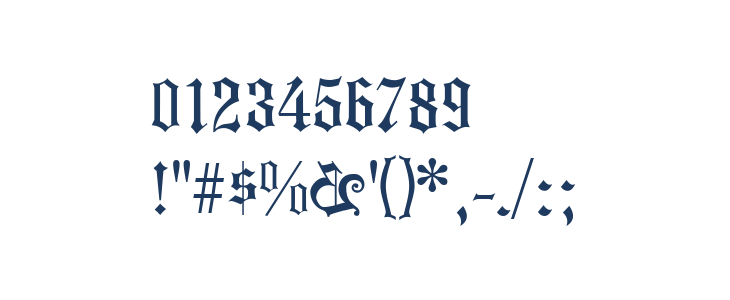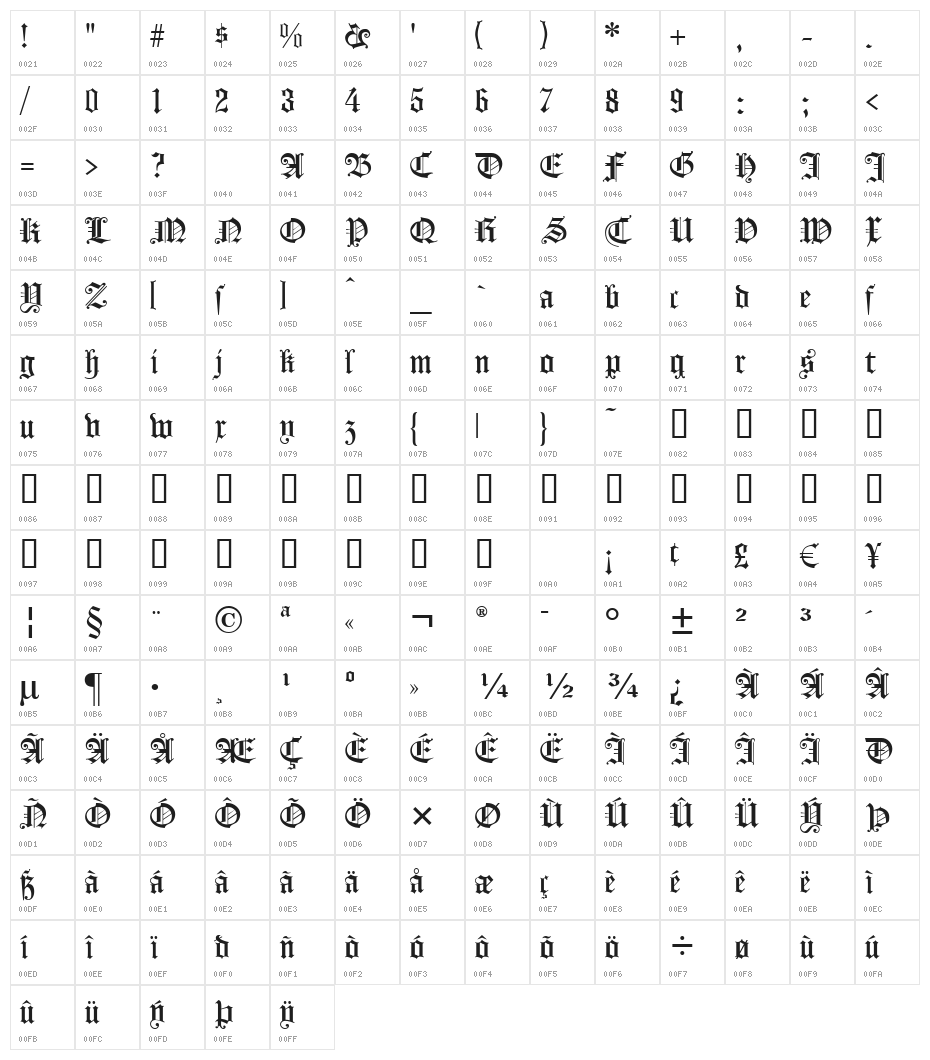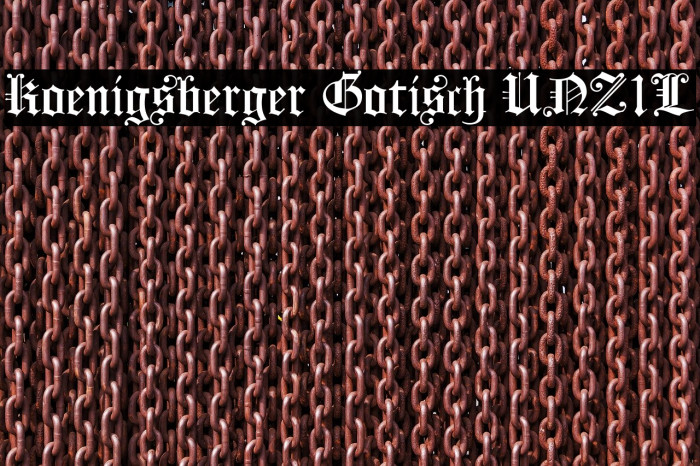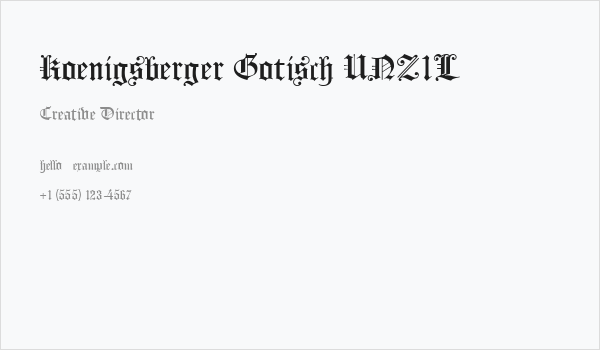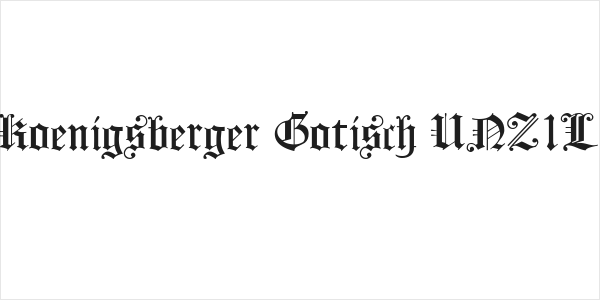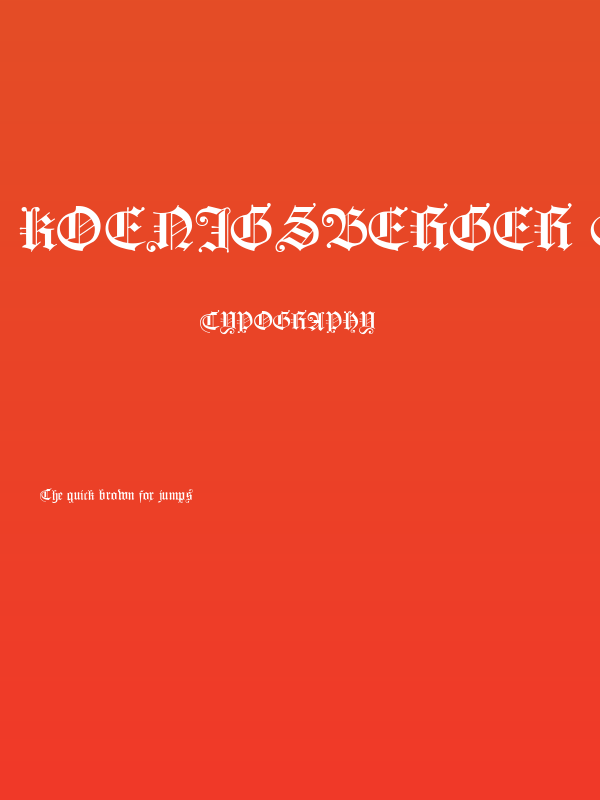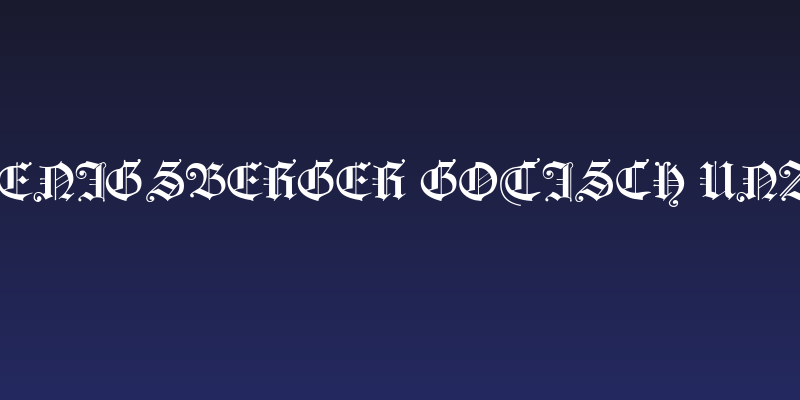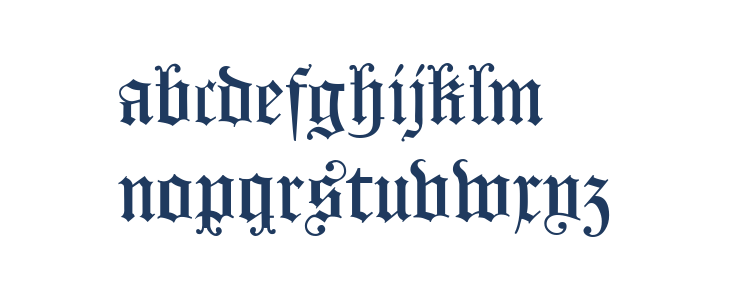
Koenigsberger Gotisch UNZ1L Font
Koenigsberger Gotisch UNZ1L Description
This font features a traditional blackletter style, characterized by its intricate and ornate design. The uppercase letters are adorned with elaborate flourishes and sharp angles, giving them a distinct medieval appearance. The lowercase letters maintain a consistent style, with bold strokes and pointed serifs that enhance the font's gothic aesthetic. The numerals are equally stylized, with a uniform thickness that complements the overall design. Special characters are crafted with the same attention to detail, ensuring a cohesive look across all elements. This font's historical and decorative qualities make it a standout choice for projects requiring a touch of old-world charm.